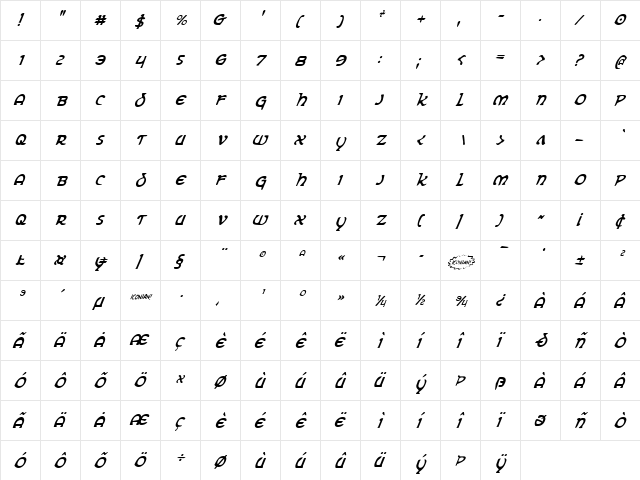
Erin Go Bragh Condensed Italic Font Preview
Design Context for Erin Go Bragh Condensed Italic Typeface
Erin Go Bragh Condensed Italic takes a measured approach to typography — its balanced proportions and neutral character make it a reliable workhorse for both digital and print work. The slanted form adds forward momentum and visual energy. The condensed width makes it efficient for tight spaces without sacrificing legibility.